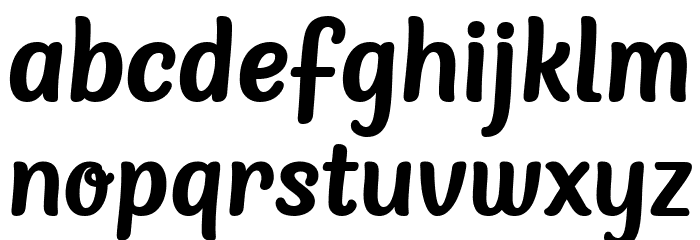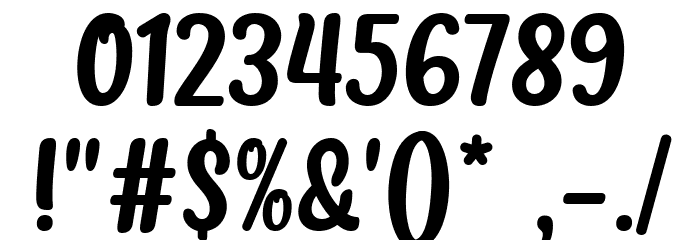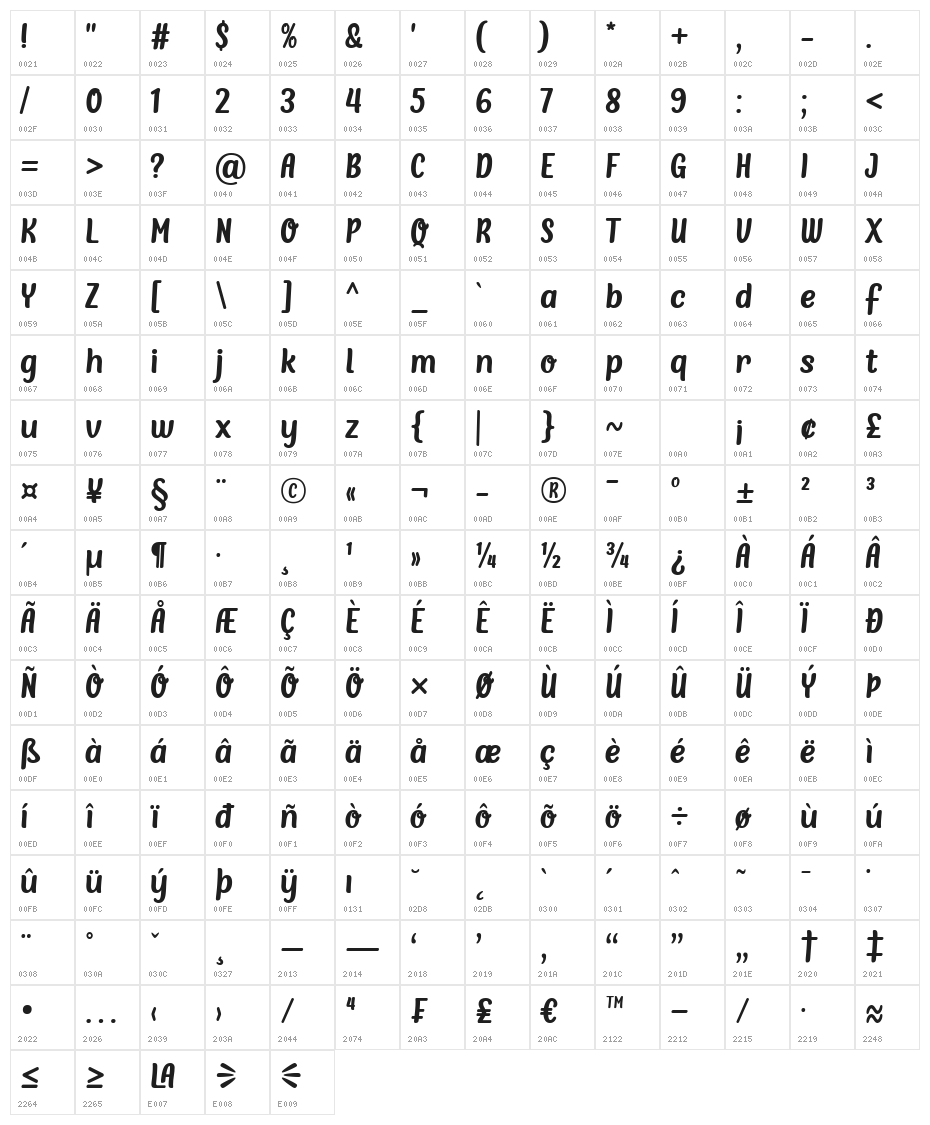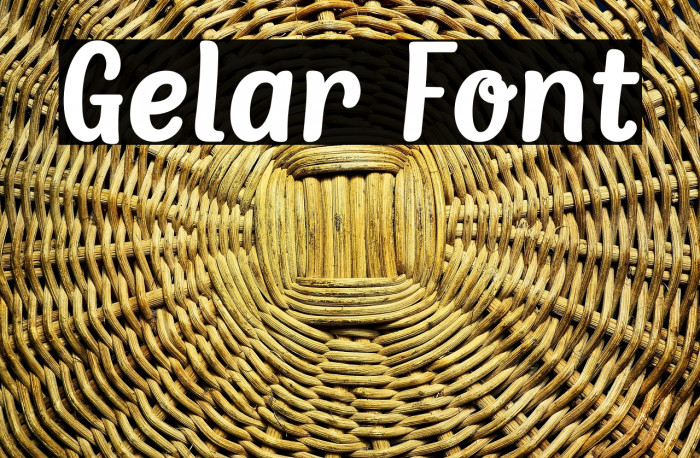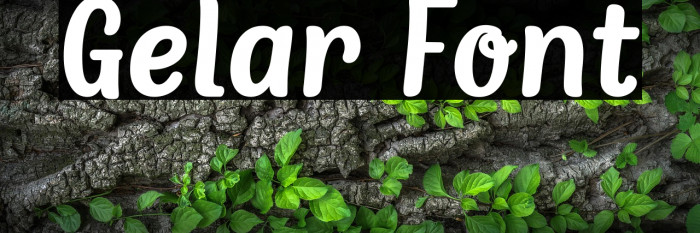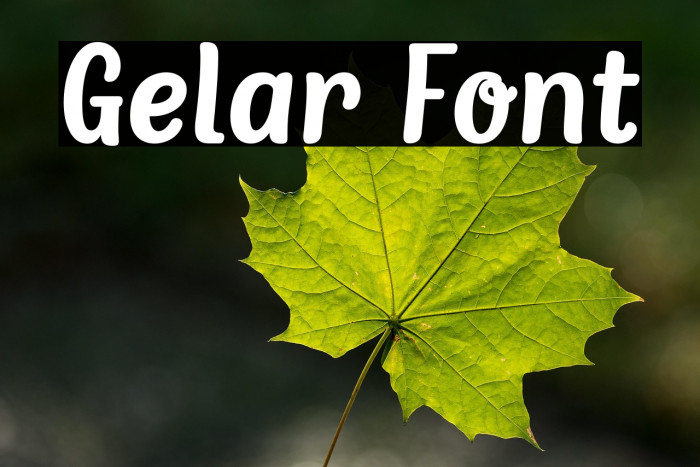
Gelar Font
This font features a playful and rounded style, characterized by its bold and smooth curves. The letters have a consistent thickness, giving it a uniform appearance that is both friendly and approachable. The uppercase and lowercase letters maintain a cohesive look, with slightly exaggerated curves that add a touch of whimsy. The numbers and special characters follow the same design principles, ensuring a harmonious overall aesthetic. This font is highly legible, making it suitable for various applications where readability and a casual tone are desired.
A playful, rounded font with bold, smooth curves and a friendly appearance.
- Proposed Projects: Ideal for children's books, playful branding, casual invitations, and social media graphics.
- Overall Style: Playful